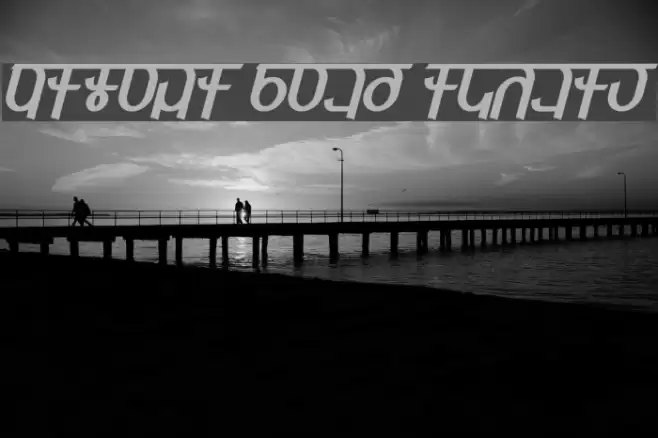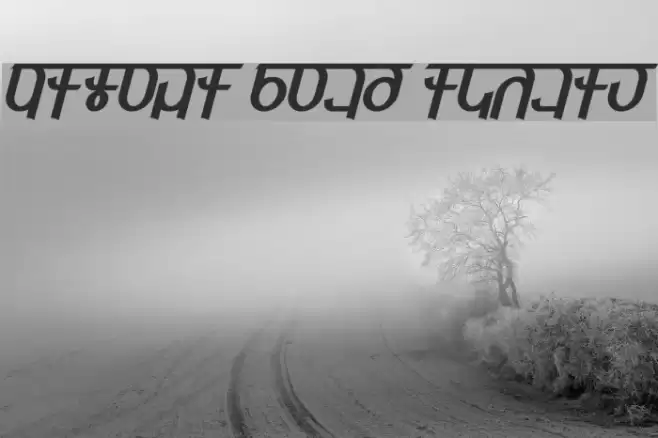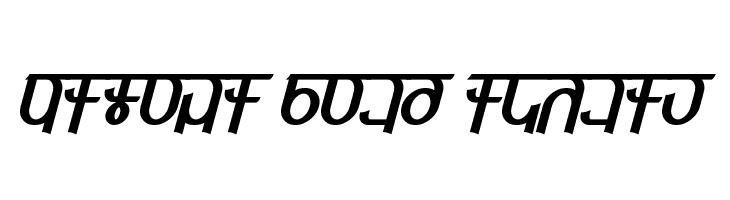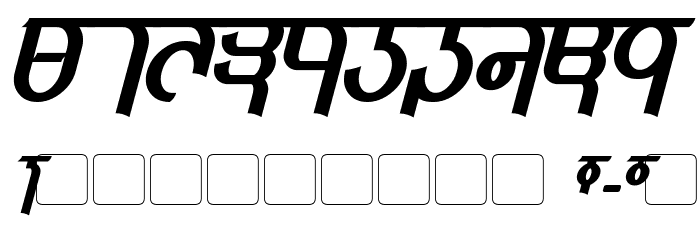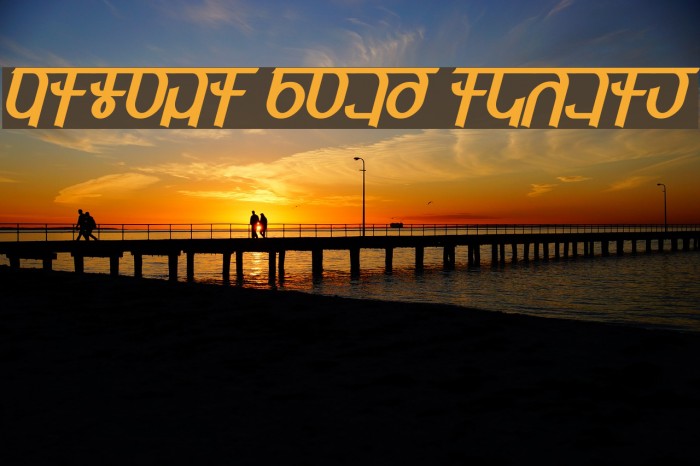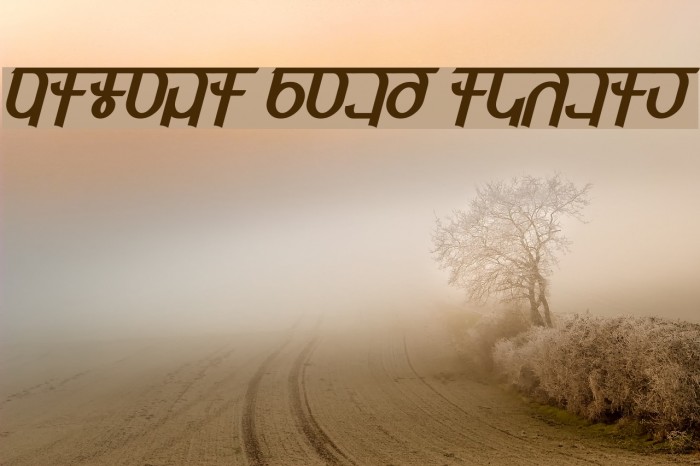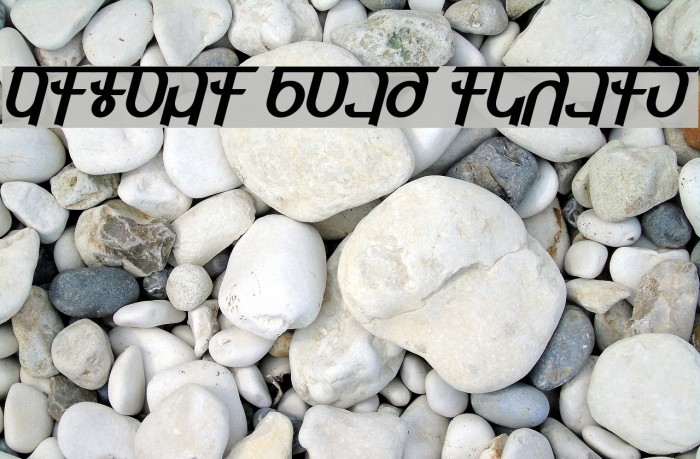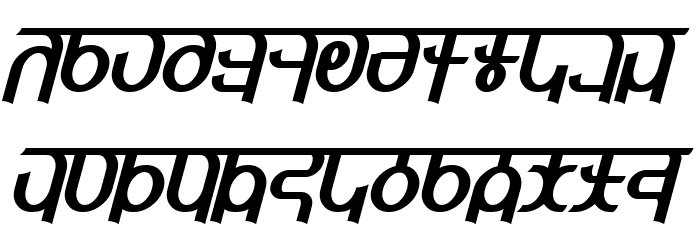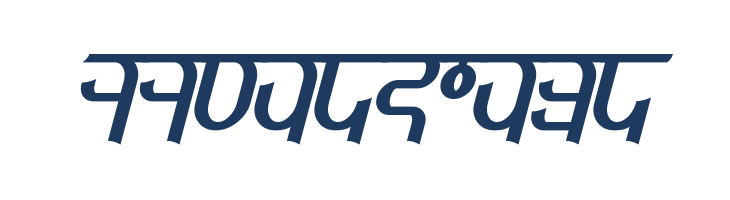
Qijomi Bold Italic Font
Qijomi Bold Italic Description
This font features a bold and italic style with a distinct, flowing script that gives it a dynamic and energetic appearance. The characters are slanted, enhancing the italic effect, and are bold, providing a strong visual impact. The strokes are consistent in thickness, offering a medium contrast that balances readability with style. The design is modern and decorative, making it suitable for creative and expressive projects. The character spacing is normal, ensuring legibility while maintaining the font's artistic flair.
A bold, italic script font with a modern and decorative style from Uncategorized fonts.
- Proposed Projects: Ideal for branding, logos, headlines, and creative design projects where a bold and expressive typeface is desired.
- Overall Style: Modern, Decorative